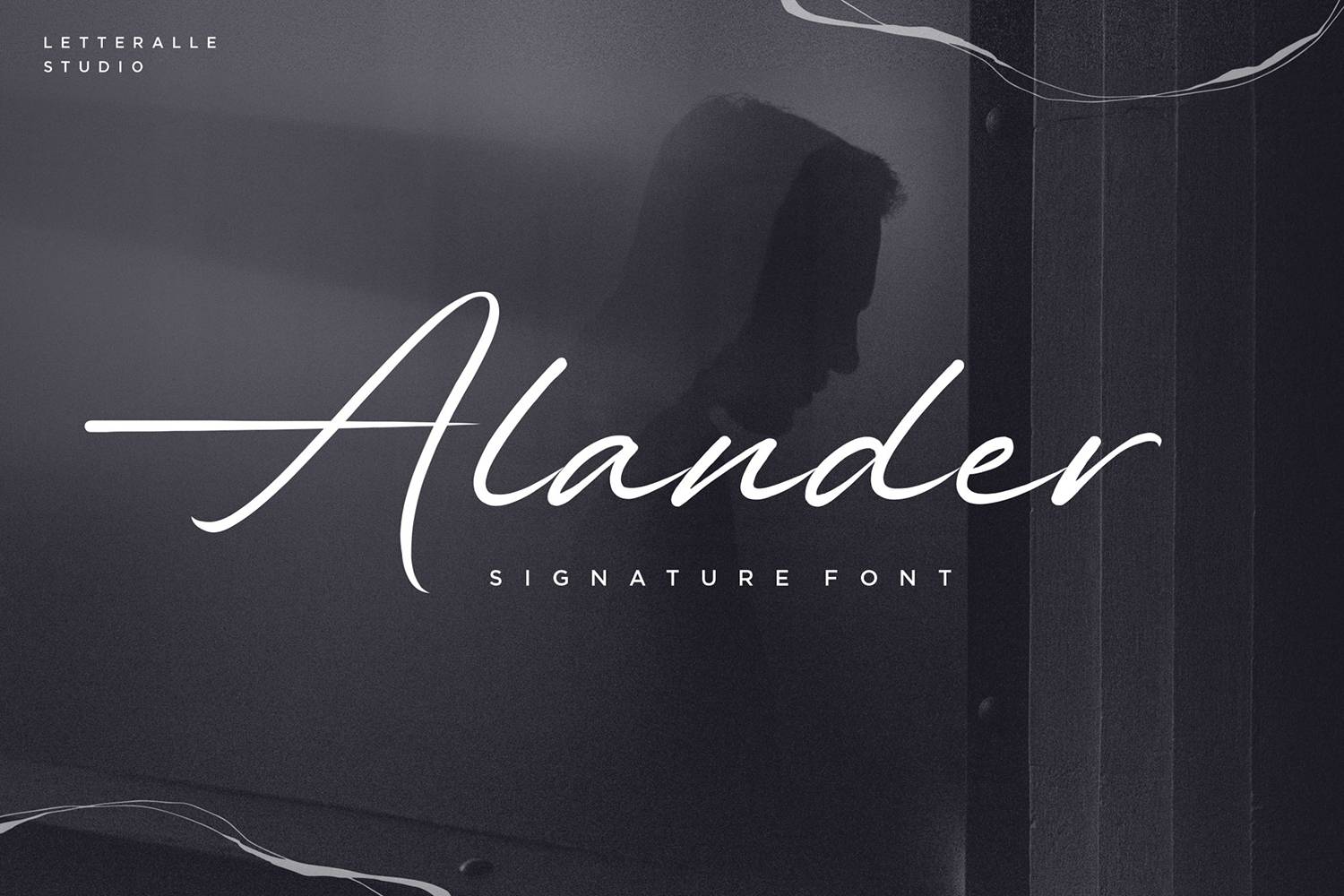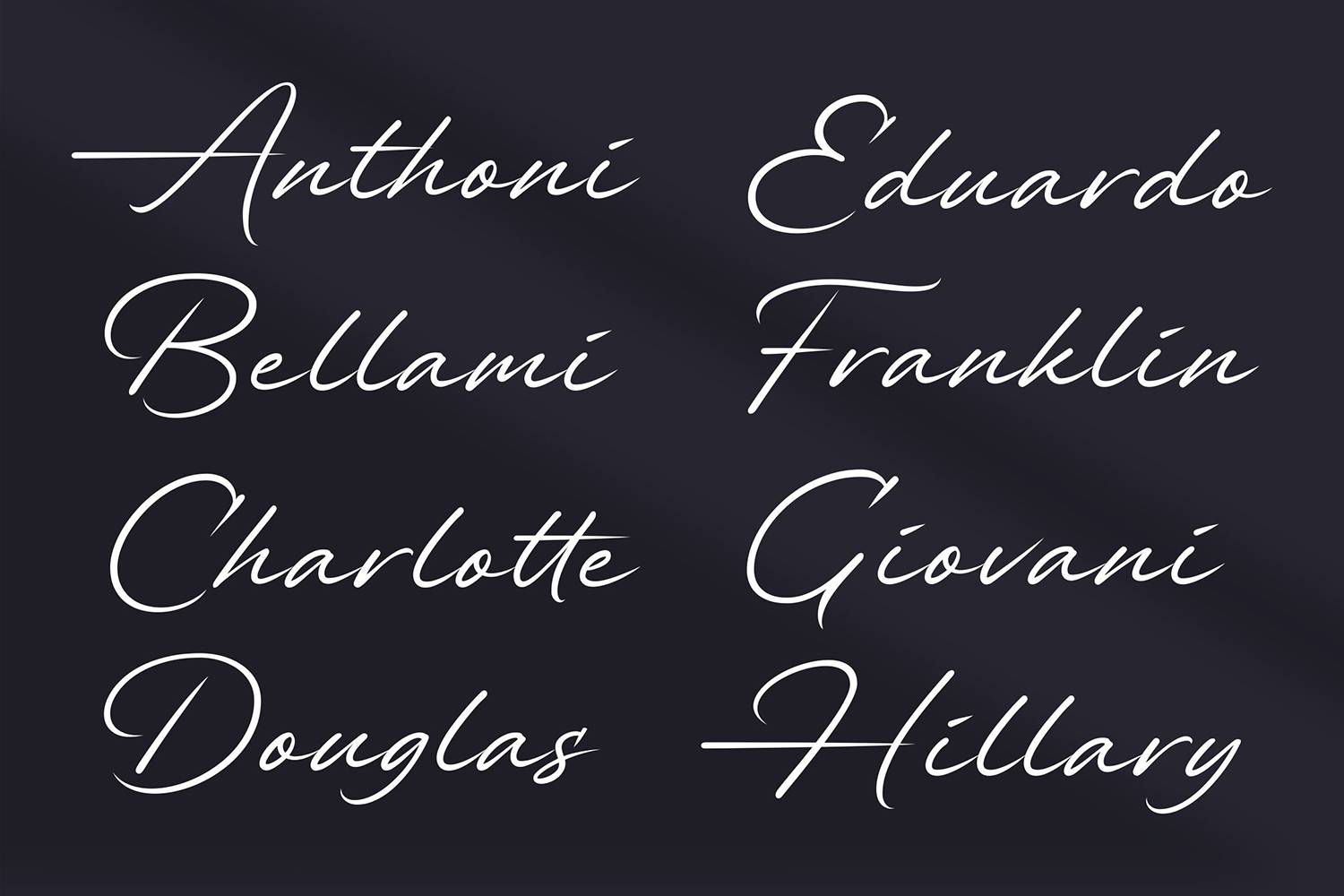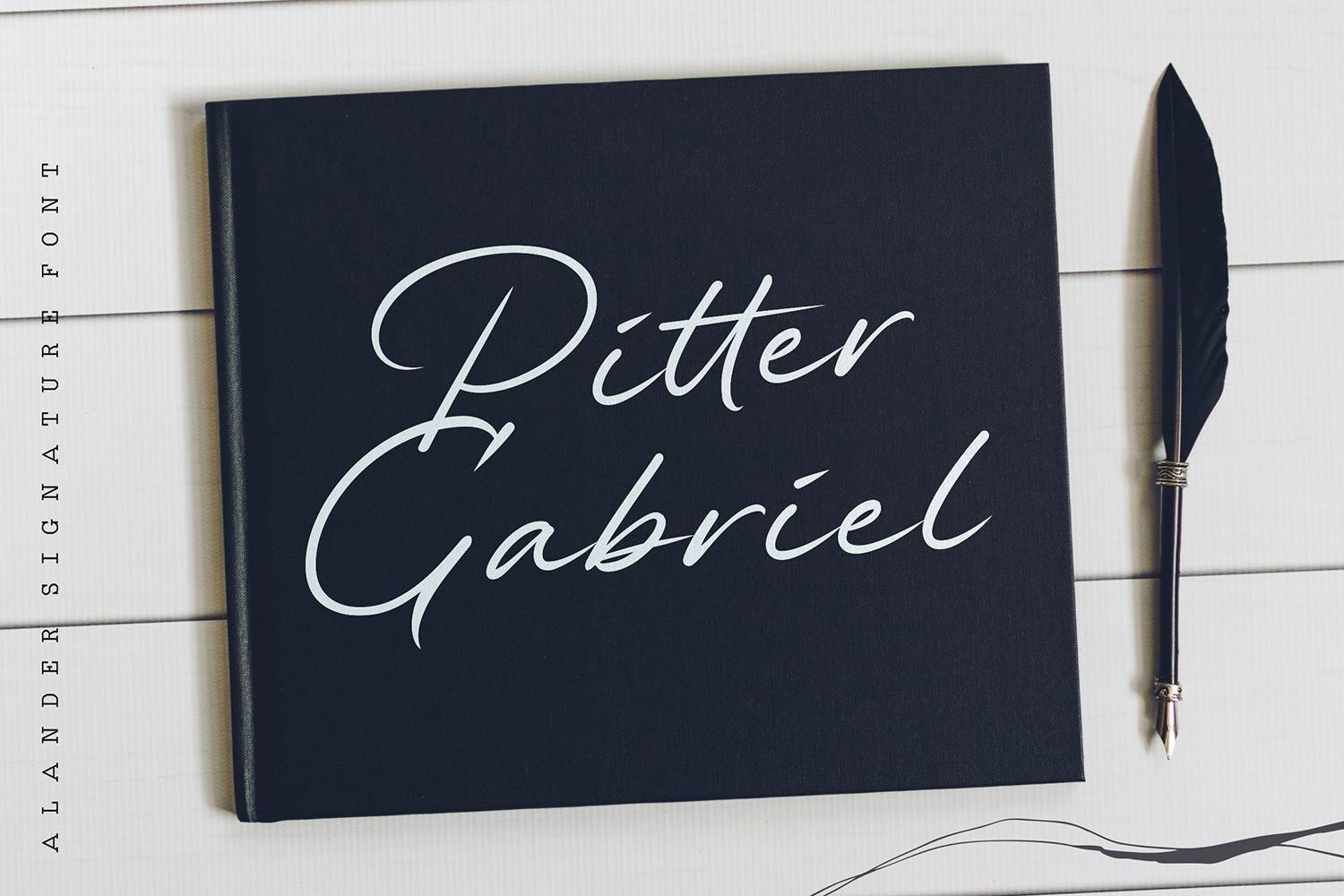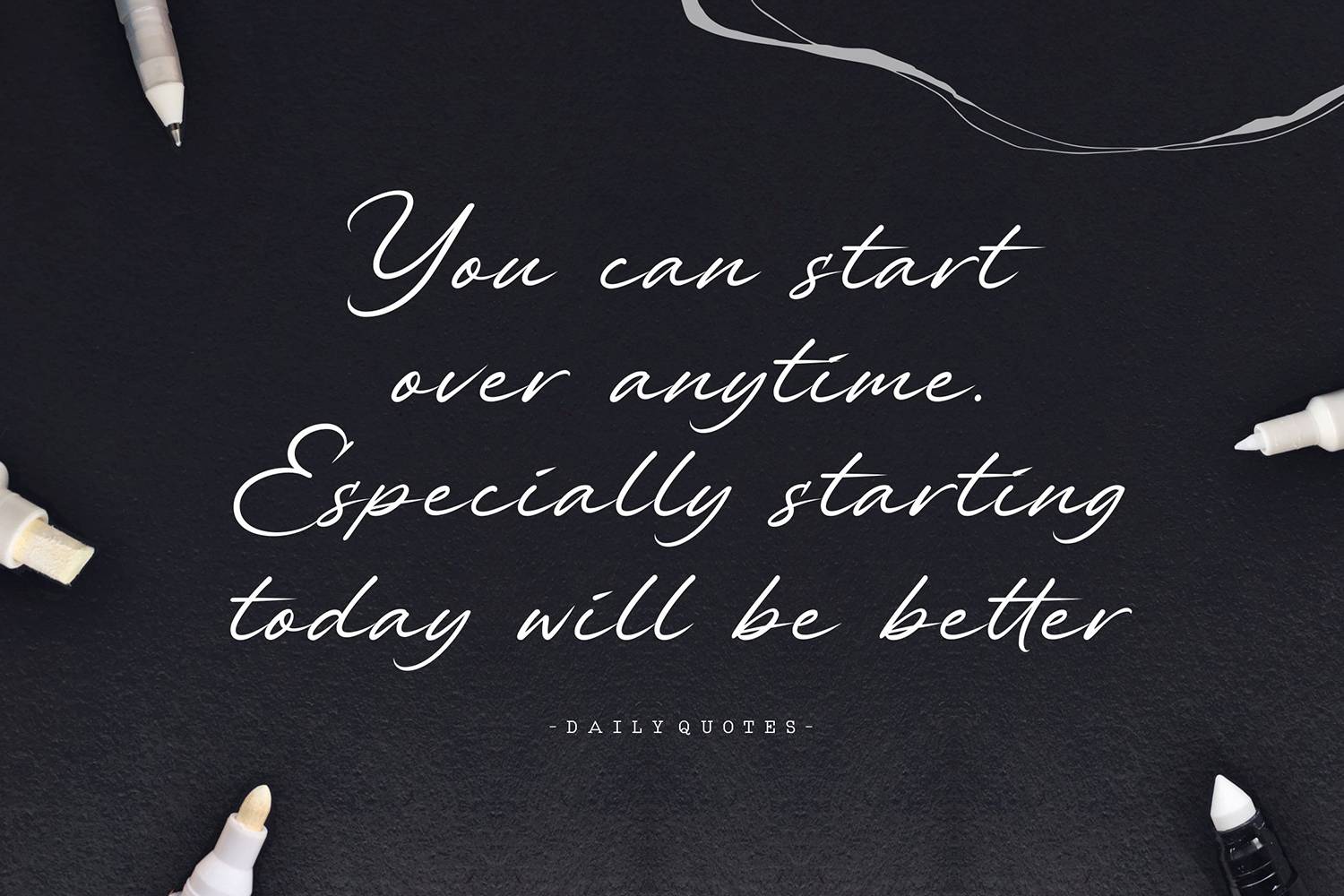
Alander is an elegant script font characterized by its delicate, flowing lines and refined, handwritten style. Its slender strokes and graceful letterforms create a sophisticated and personal feel, making it ideal for invitations, branding, and any design that seeks a touch of classic charm and elegance. This font works beautifully in projects that require a stylish yet readable script with a subtle flair.
Alander Font
About Alander Font